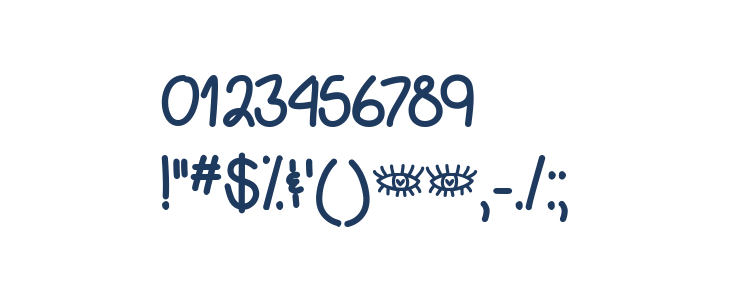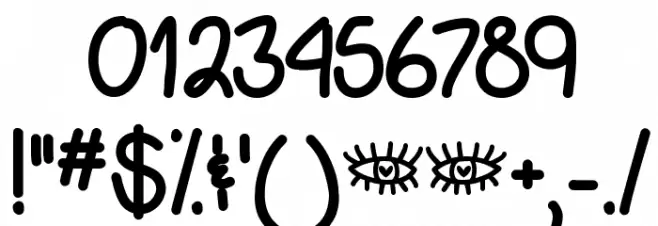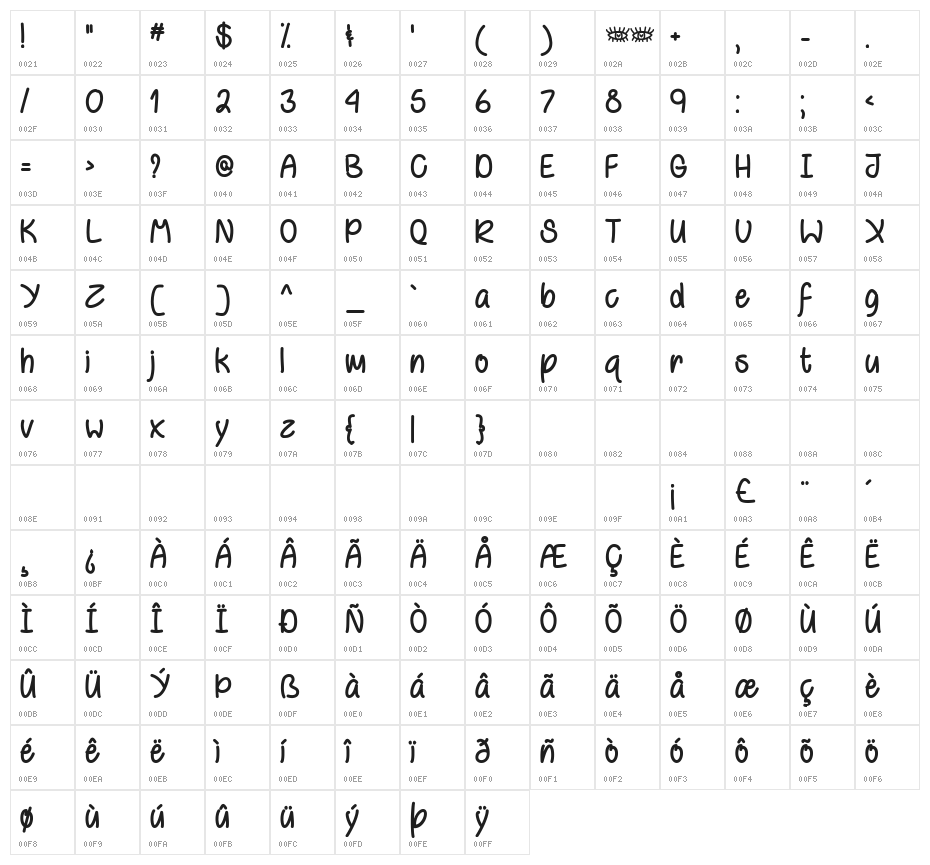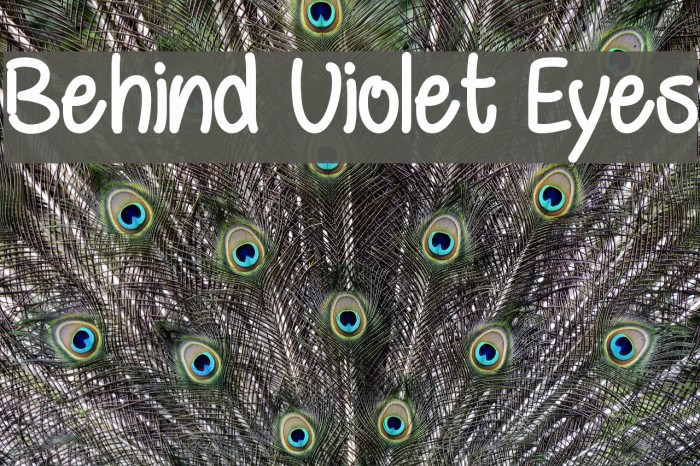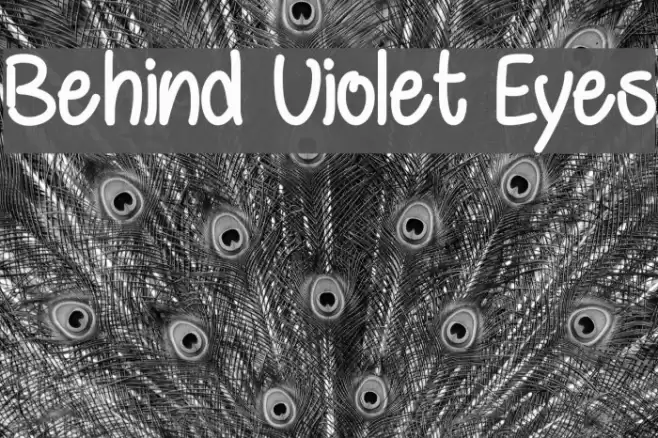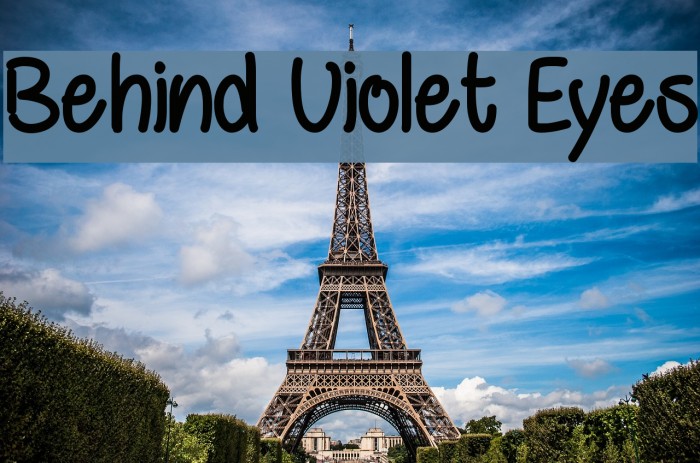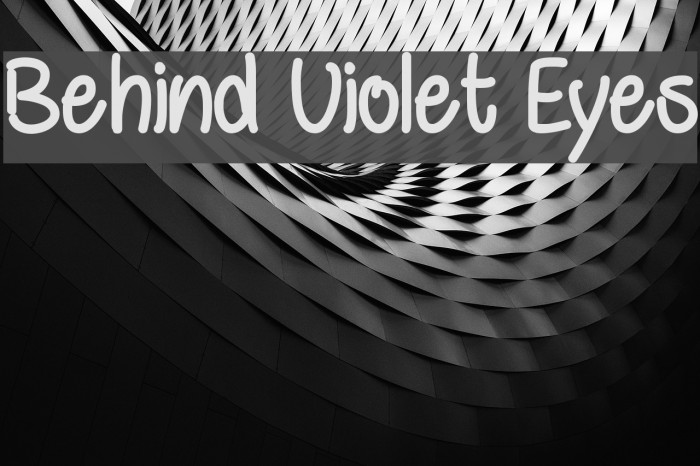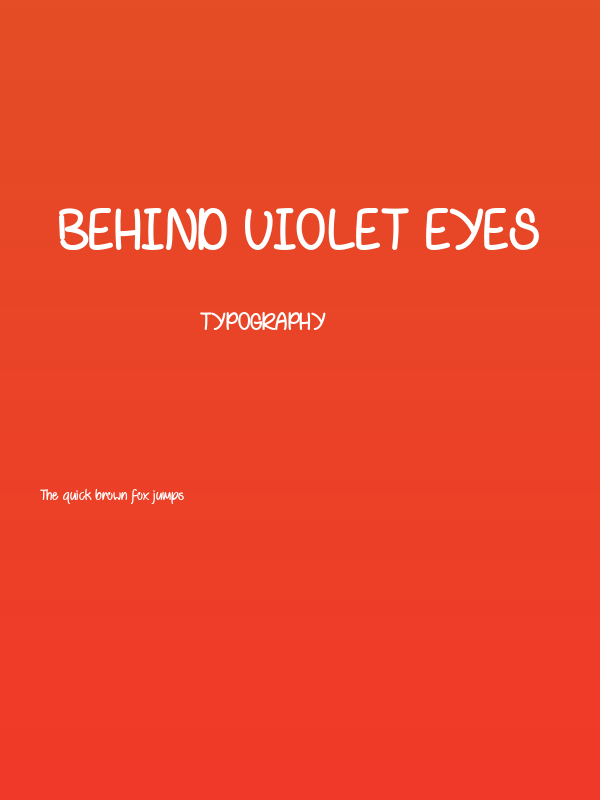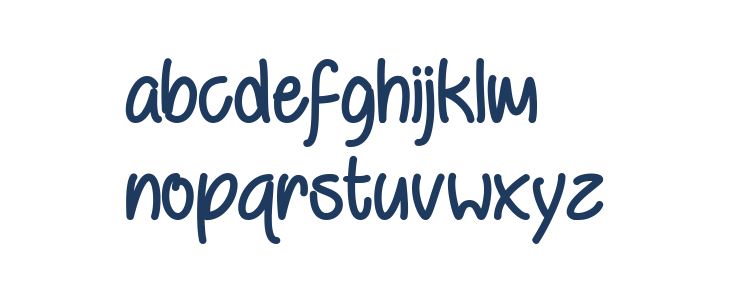
Behind Violet Eyes Font
Behind Violet Eyes Description
This playful and whimsical font features rounded, bold characters with a handwritten style. The uppercase letters are slightly taller and more prominent, while the lowercase letters maintain a consistent flow with a casual, friendly appearance. The numbers are well-balanced, matching the overall style of the alphabet. Special characters are creatively designed, adding a unique touch to the font's personality. The font exudes a sense of fun and creativity, making it ideal for projects that require a personal and approachable feel.
Overall StylePlayful
Use CaseHeadlines, Logos, Informal Text
Proposed ProjectsIdeal for children's books, greeting cards, playful branding, and social media graphics.